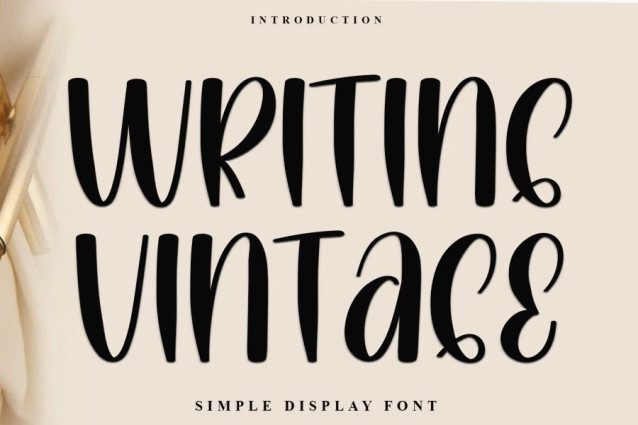
Writing Vintage Font
Writing Vintage Font is a trendy handwritten font with a contemporary atmosphere and impeccable form, inspired by timeless classic calligraphy. It will add elegance and class to any of your design projects.